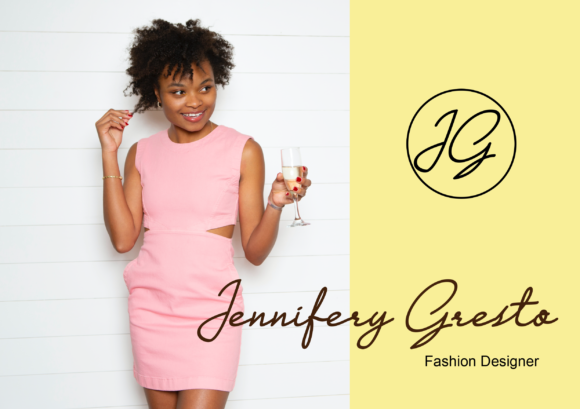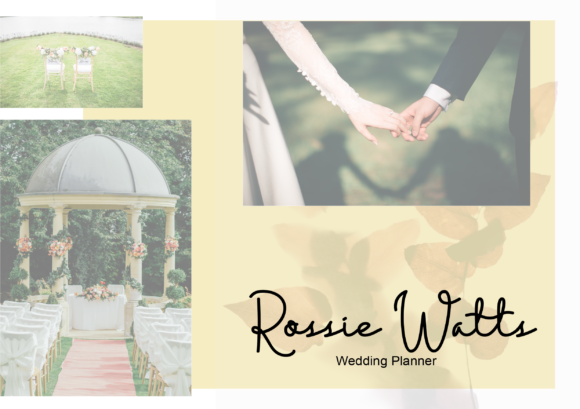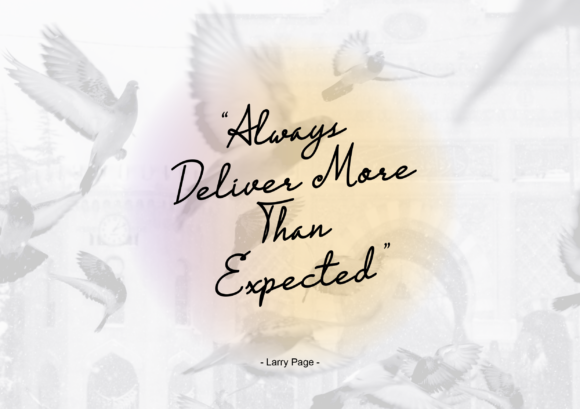
Introduction to Localova Font
Localova feels equally charming and elegant.
This stunning handwritten font is a stylish homage to classic calligraphy It features a varying baseline, smooth lines, gorgeous glyphs and stunning alternates.